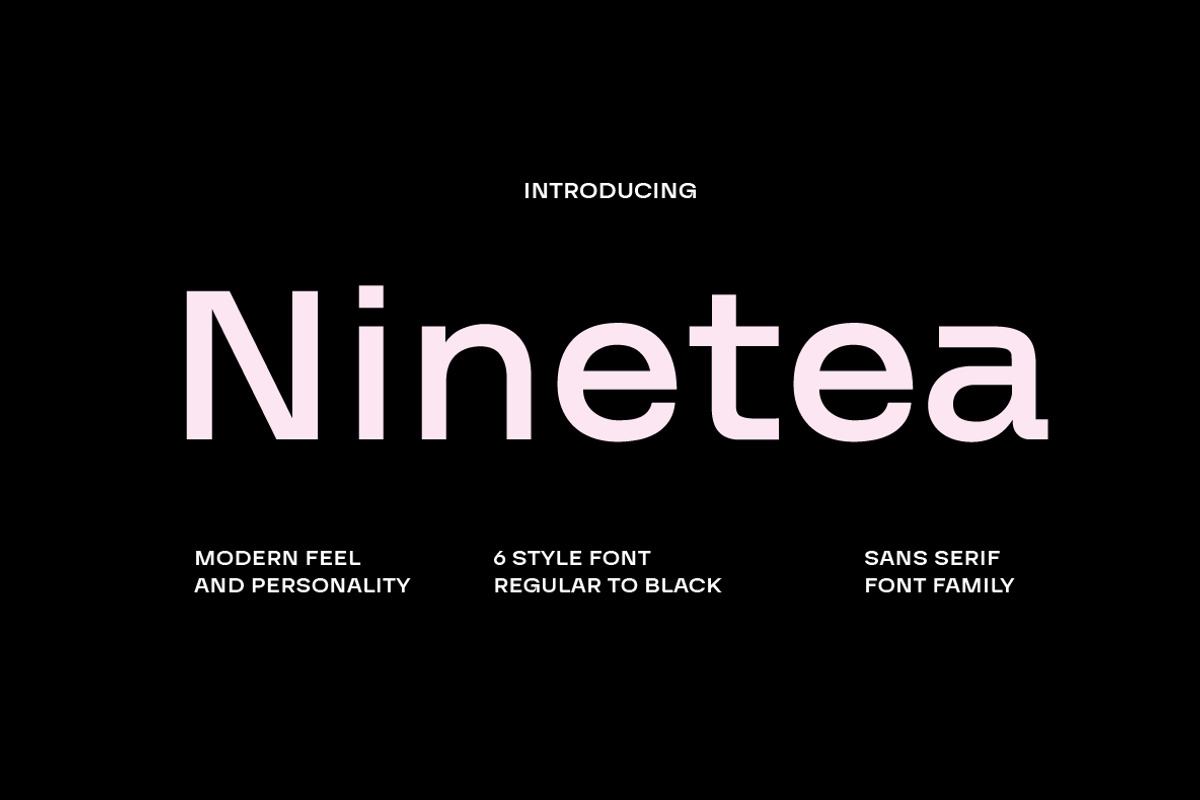
Ninetea Sans Serif Font Free Download is a clean and stylish typeface inspired by modern minimalism and functional design. Ideal for branding, editorial layouts, web design, and product packaging, this font delivers clarity and sophistication in every use.
With its balanced proportions and smooth letterforms, Ninetea Sans Serif Font Free Download offers a professional and versatile look that fits a wide range of design aesthetics. Whether you're building a sleek tech brand or crafting clean user interfaces, Ninetea ensures your typography stays elegant and legible. Download and test it in your next design project to experience its modern appeal—then upgrade to a commercial license when you're ready to publish.